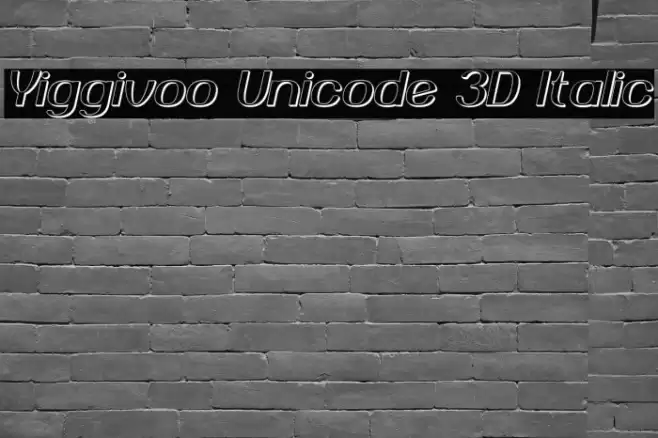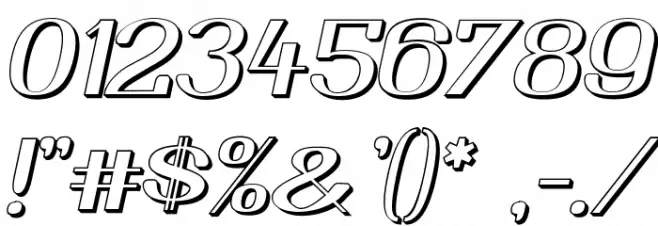
Yiggivoo Unicode 3D Italic Font
Yiggivoo Unicode 3D Italic Description
This font features a unique 3D italic style with a playful and dynamic appearance. The characters are outlined, giving them a hollow look that adds depth and dimension. The strokes are smooth and consistent, with a slight slant that enhances the italic effect. The uppercase and lowercase letters maintain a cohesive design, while the numerals and special characters complement the overall aesthetic. This font is visually striking, making it ideal for creative and modern design projects.
A 3D italic font with outlined characters and a playful, dynamic style from Uncategorized fonts.